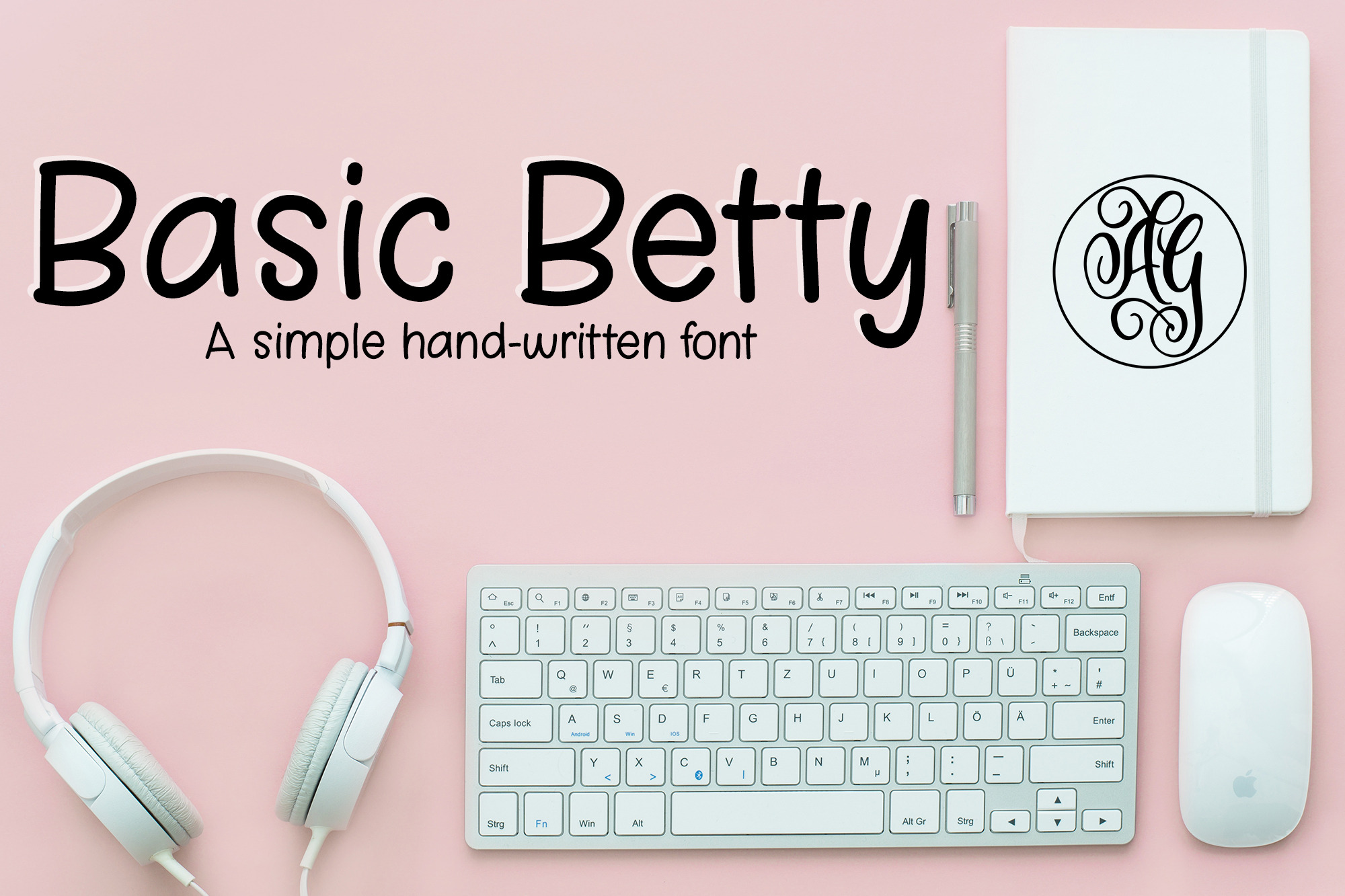
Basic Betty handwriting font
Basic Betty is a simple, clean, hand-written font. It includes uppercase and lowercase characters as well as punctuation. It's perfect for that handwriting look, while still being clean and easy to read at smaller sizes. Your download includes OTF and WOFF webfont versions.